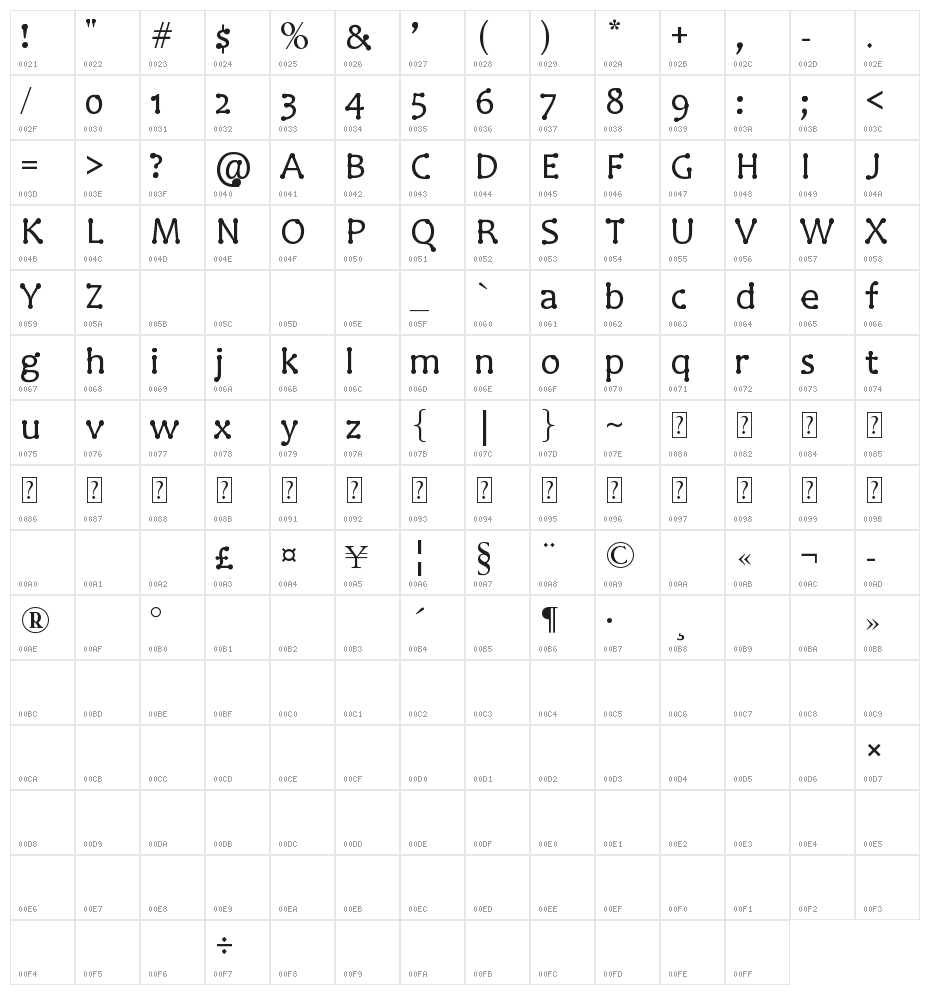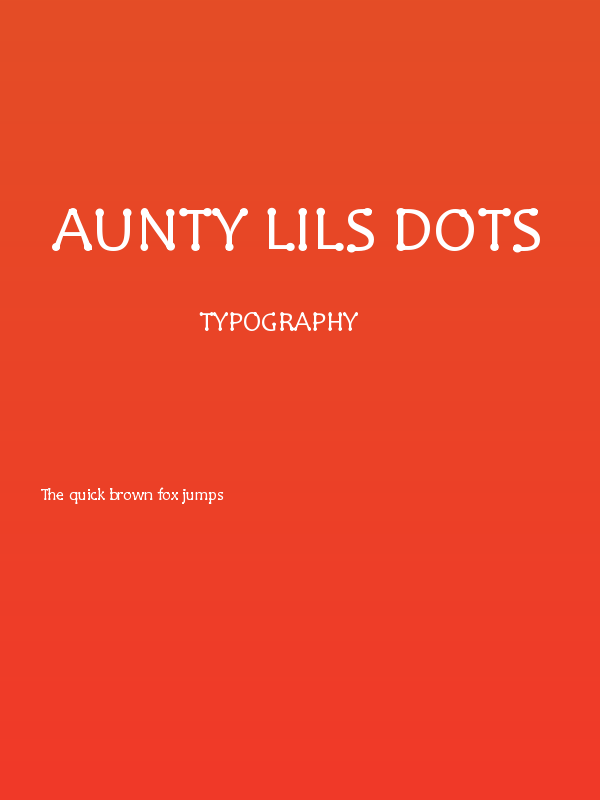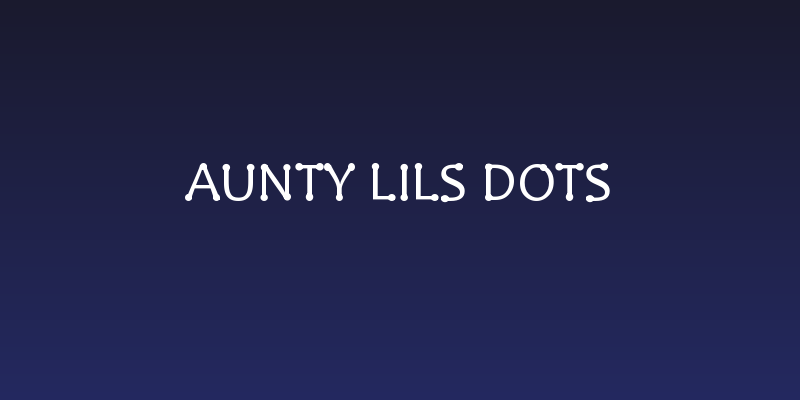
Aunty Lils Dots Font
Aunty Lils Dots Description
This playful and whimsical font features a unique dotted design that adds a touch of fun to any text. Each character is constructed with dots at the ends of strokes, creating a lively and engaging appearance. The font maintains a consistent weight throughout, ensuring readability while offering a distinctive style. Its rounded edges and smooth curves contribute to a friendly and approachable feel, making it ideal for creative projects. The font includes a full set of uppercase and lowercase letters, numbers, and a variety of special characters, providing versatility for different uses.
Overall StylePlayful
Use CaseHeadlines, Logos, Creative projects
Proposed ProjectsIdeal for children's books, playful branding, party invitations, and creative posters.